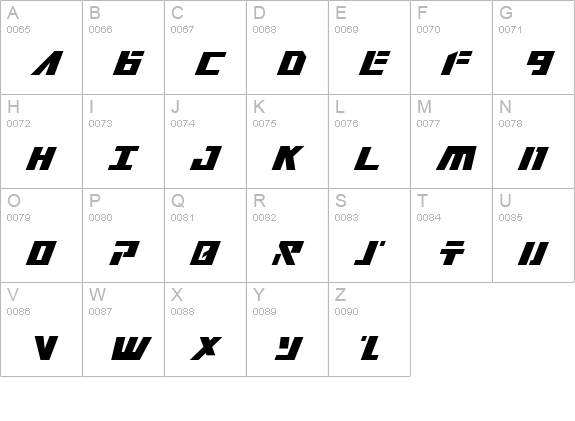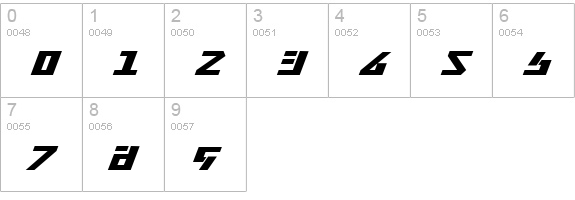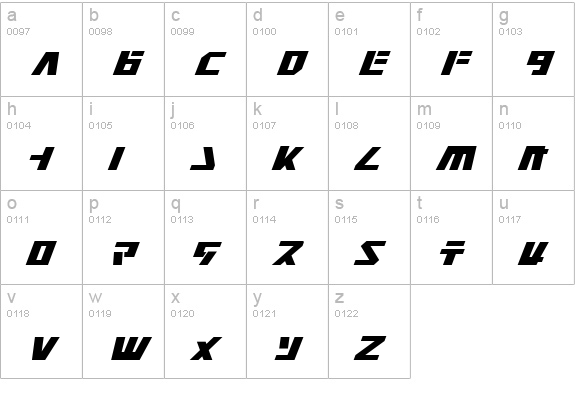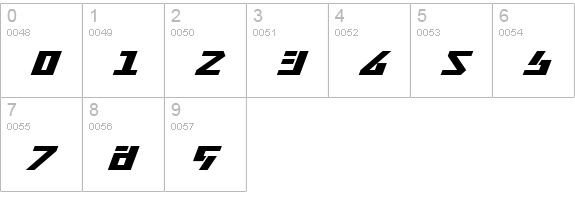
Falconhead Italic Font Details
Falconhead Italic is a distinctive, italic variant in the Falconhead typeface family \xE2\x80\x94 well suited to design and typography projects.
Falconhead Italic font is a stylish and modern typeface that exudes elegance and sophistication. With its sleek and flowing design, this font is perfect for adding a touch of class to any project. The italicized letters give a sense of movement and fluidity, making Falconhead Italic a versatile choice for both headings and body text. What sets Falconhead Italic apart is that it is available for free download at FontsMarket.com. This means you can easily access this stunning font to elevate your designs without any cost. Whether you're working on a branding project, website design, or any other creative endeavor, Falconhead Italic is sure to make a statement and leave a lasting impression. Download this font today and add a touch of sophistication to your work!